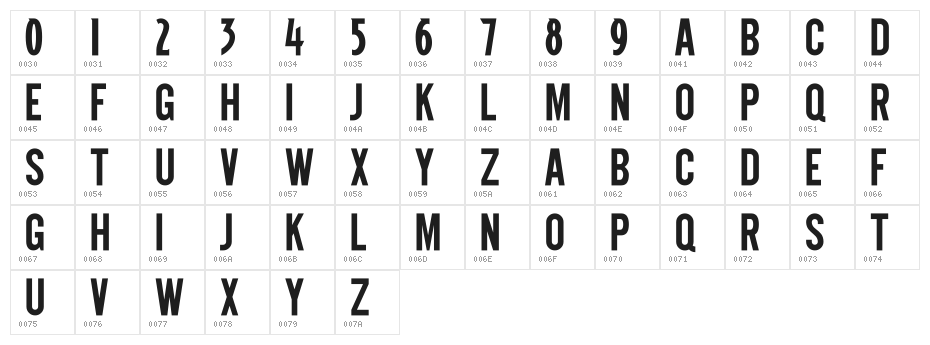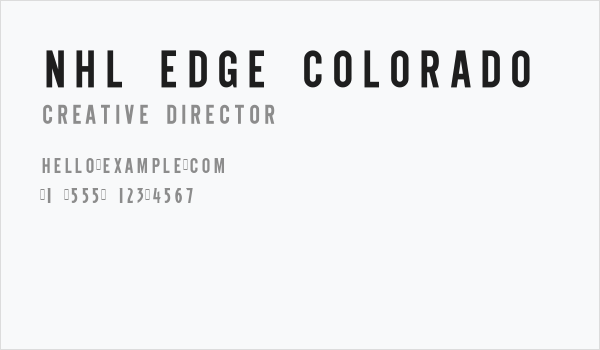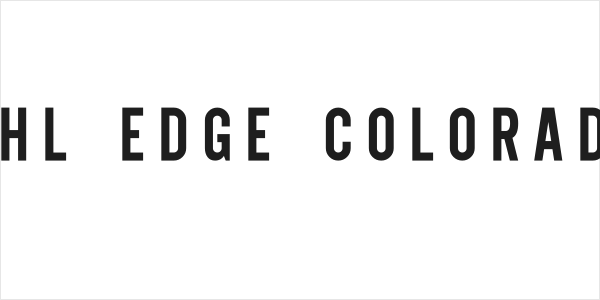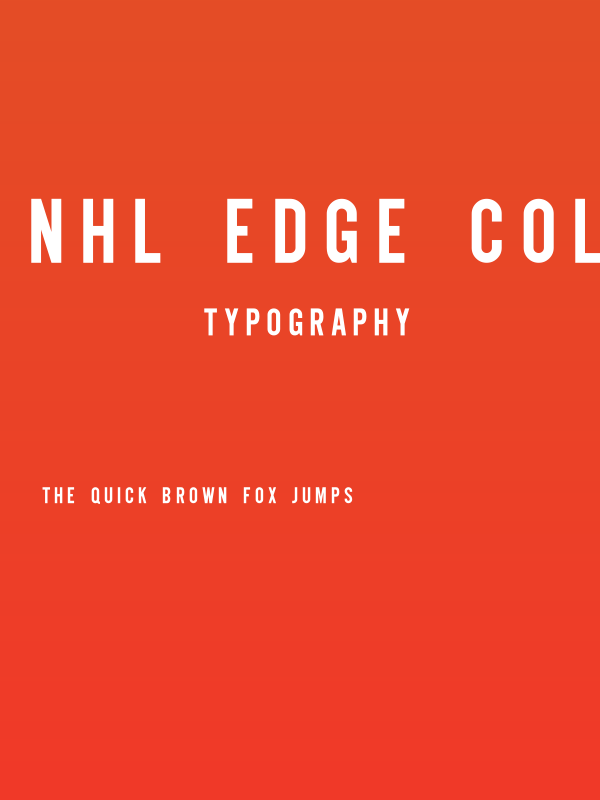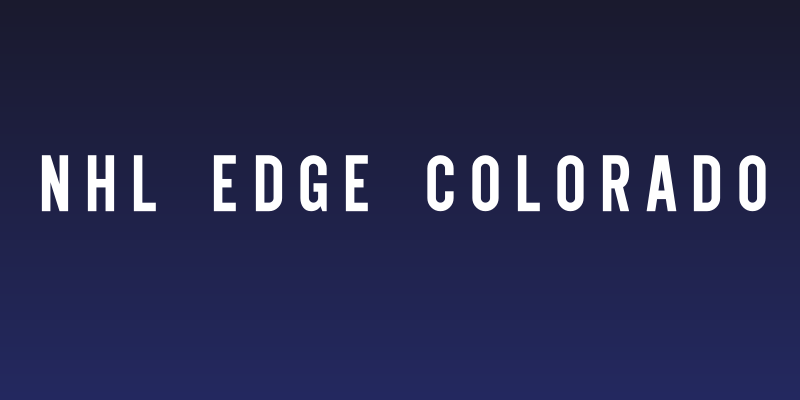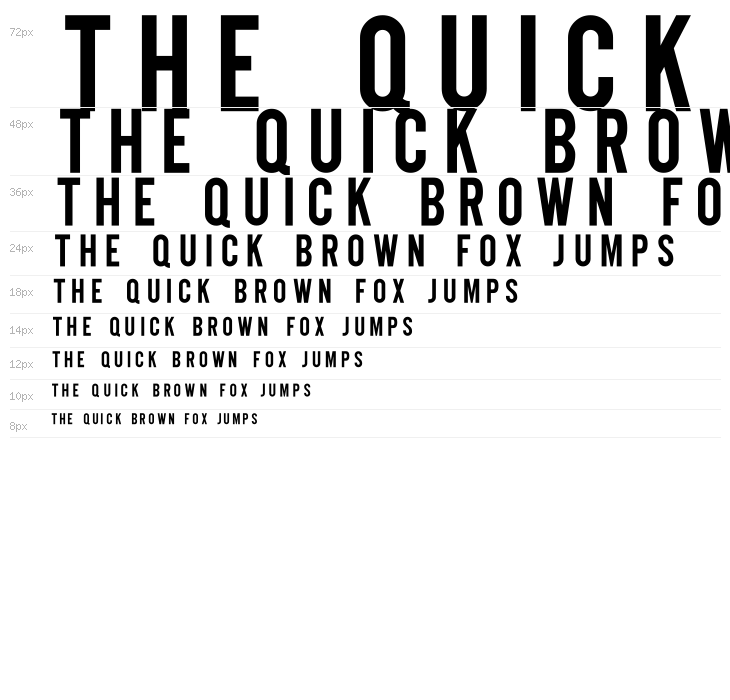
NHL Edge Colorado Font
NHL Edge Colorado Description
This font features bold, uppercase letters with a strong, impactful presence. The characters are sans-serif, giving them a clean and modern look. The strokes are consistent in thickness, providing a uniform appearance across all letters. The numbers are equally bold, maintaining the same visual weight as the letters. The special characters are designed to match the overall style, ensuring cohesion throughout. The font's design is straightforward yet powerful, making it suitable for attention-grabbing headlines and titles.
| Proposed Projects | Ideal for sports branding, team logos, posters, and merchandise designs. |